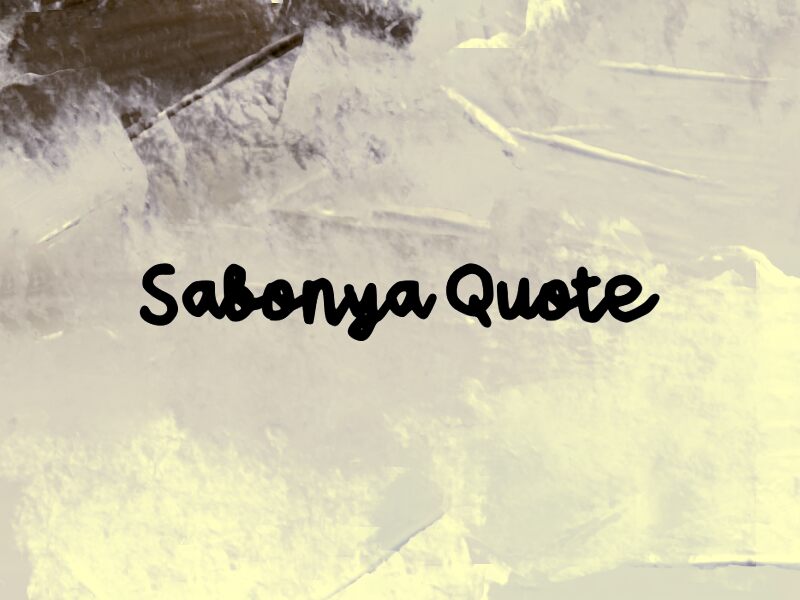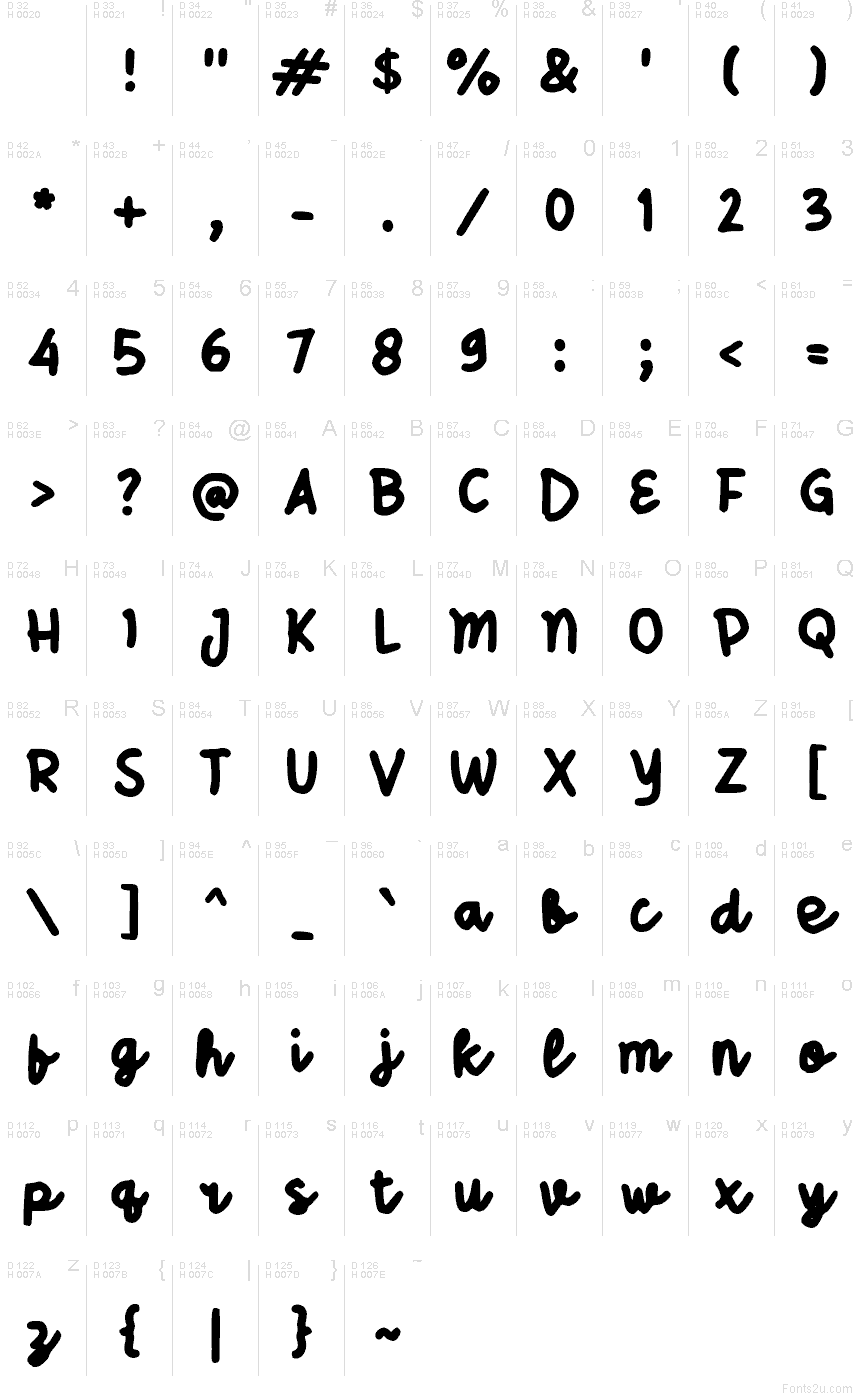
Sabonya Quote
Sabonya Quote font by wepfont.com is a free handwritten font that feels like it was brushed straight onto the screen with a chunky marker. The letters are bold, rounded, and slightly bouncy, giving every word an easygoing, friendly warmth. Its strokes are thick and inky, with just enough wobble to feel human without looking messy, so short lines of text snap into focus and stay legible even at smaller sizes.
Using Sabonya Quote, this free font shines on inspirational quotes, social media graphics, packaging tags, stickers, logos, and playful headers that need a personal touch. It carries a cozy, conversational tone that makes messages feel like they’re coming from a real person, not a template. Try pairing this handwritten typeface with a clean, thin sans serif for supporting text, and let Sabonya Quote take the lead at larger sizes for maximum impact.